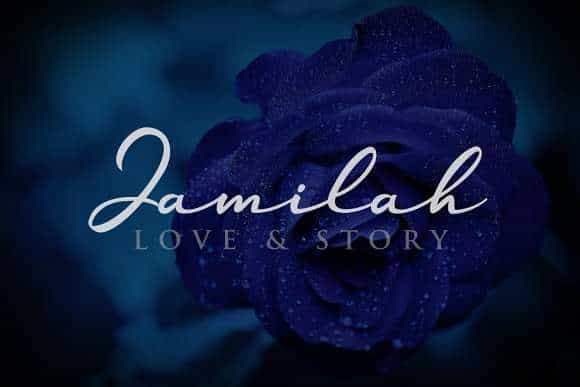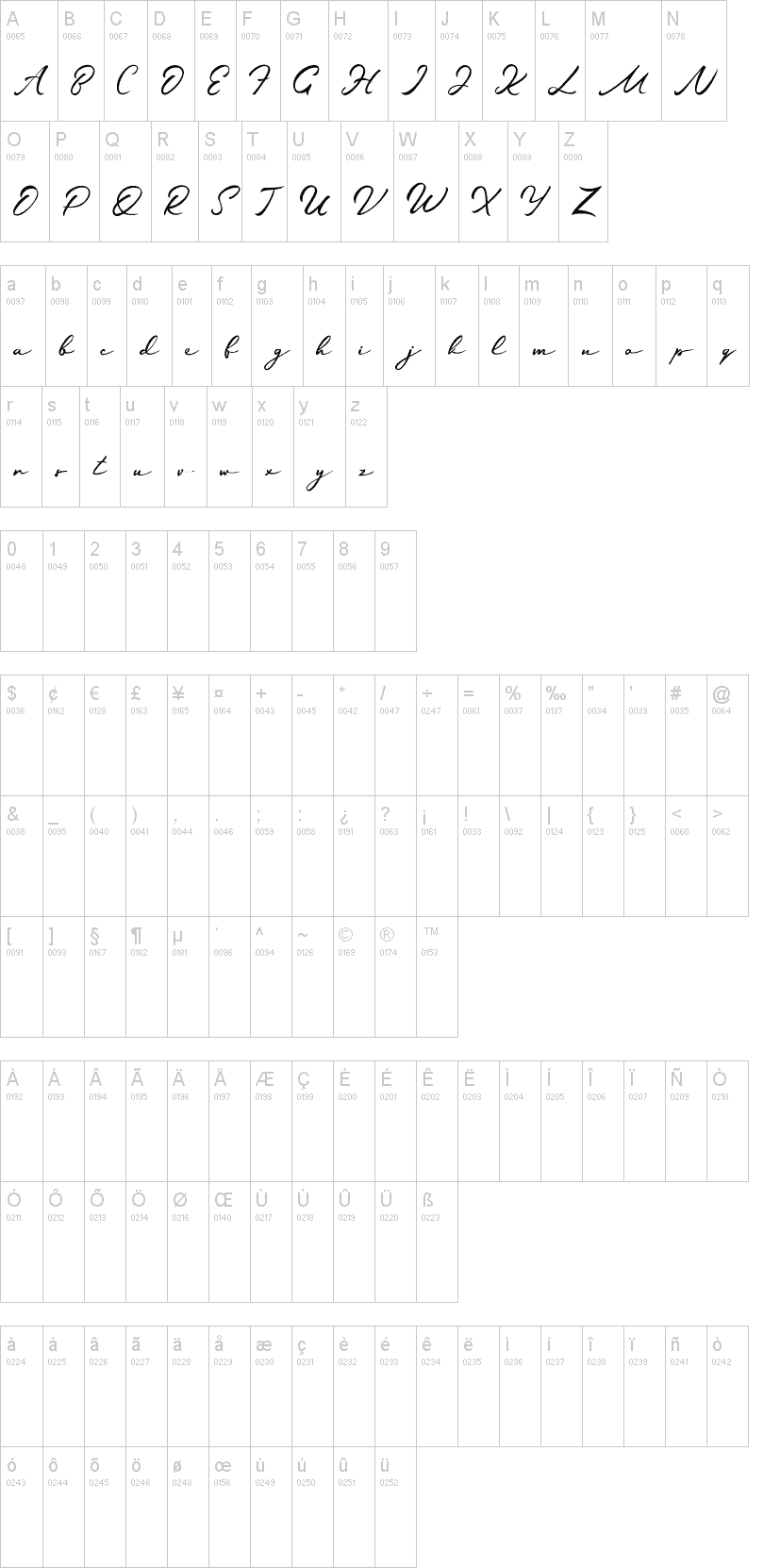
Discover Jamilah Font, part of the Calligraphy collection—a versatile and unique font perfect for adding a personal touch to your projects. Download it for free and enjoy crafting designs with style, from invitations to social media posts. This font is available exclusively for personal use, giving you the freedom to create without limits. Unlock your creativity with Jamilah Font today!